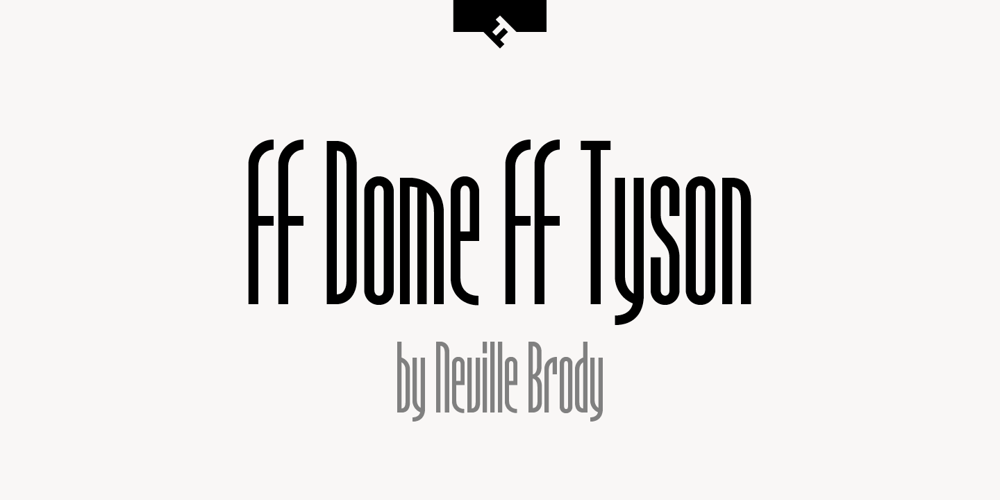
FF Dome
FF Dome font
FF Dome Font Family was designed by Neville Brody and published by FontFont. FF Dome contains 2 styles and family package options. British type designer Neville Brody created this display FontFont in 1993. The family contains 3 weights and is ideally suited for advertising and packaging, film and tv, poster and billboards, software and gaming as well as sports. FF Dome provides advanced typographical support with features such as ligatures and case-sensitive forms. It comes with proportional lining figures.